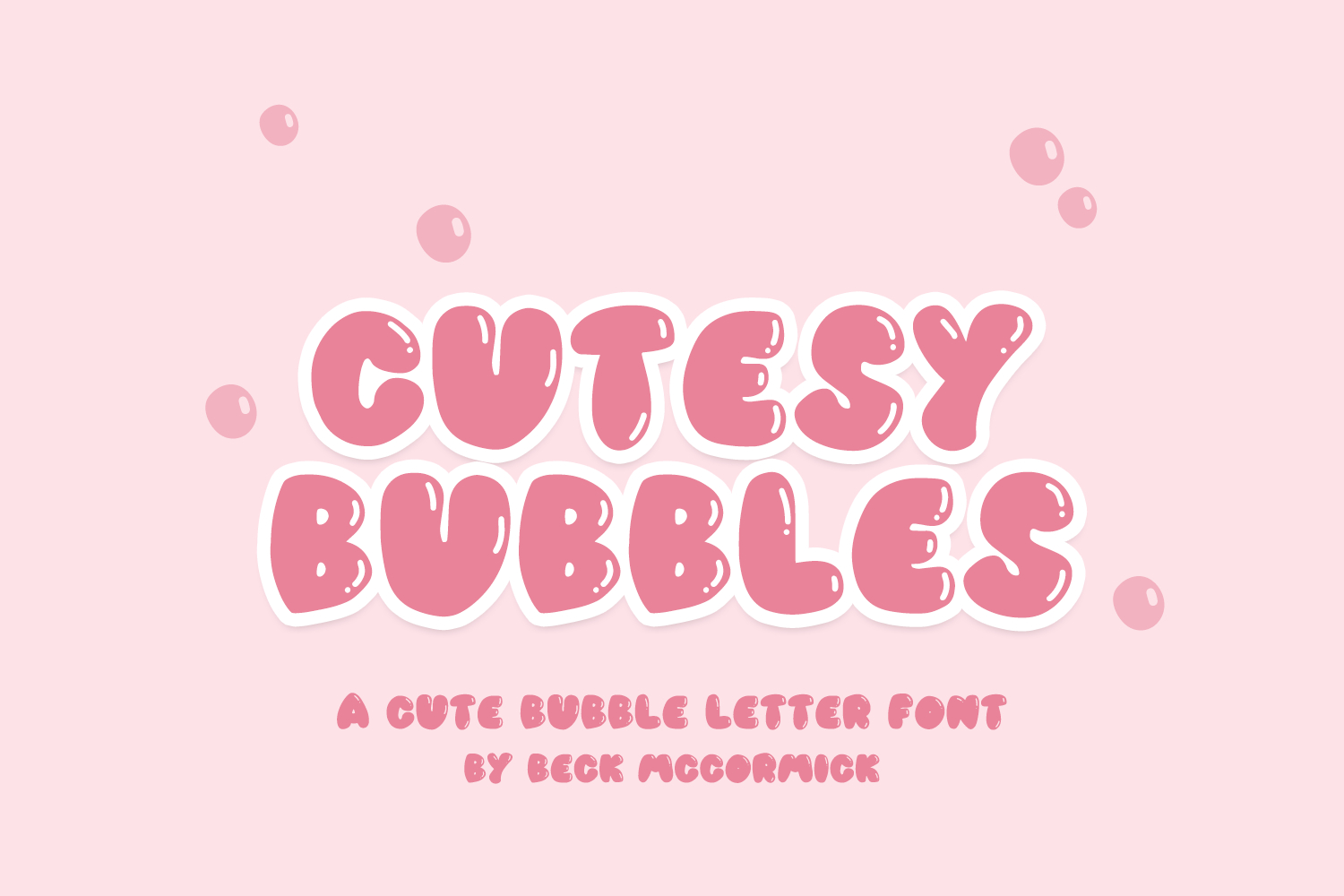
Cutesy Bubbles Sans is an adorable bubble-style font with little shiny accents. Cutesy Bubbles is all-caps, chunky, and super fun! It’s a great fit for any project that needs a bold display font, fun branding projects, or youthful t-shirt designs.
- full uppercase characters (the same characters are programmed into the lowercase glyphs, as well)